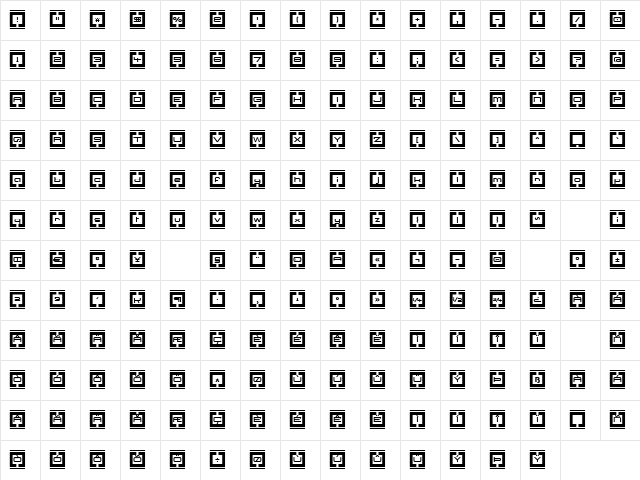
Border Base Future Regular
Design Context for Border Base Future Typeface
Border Base Future channels digital-age aesthetics through its sharp, structured letterforms — ideal for brands that want to signal innovation.
Pro Tip: Use Border Base Future in combination with a neutral sans for body text. Let it define the brand voice in headlines while keeping reading comfortable elsewhere.